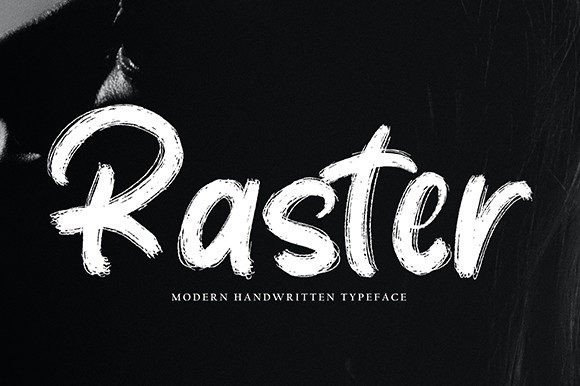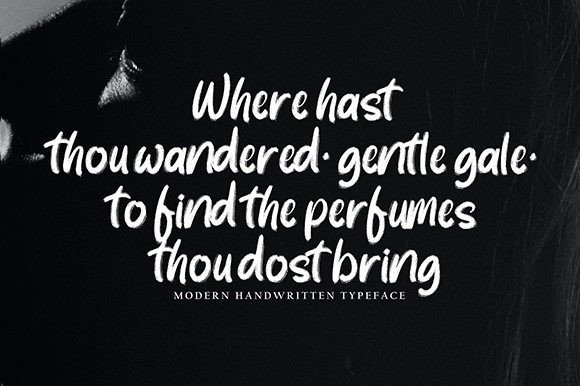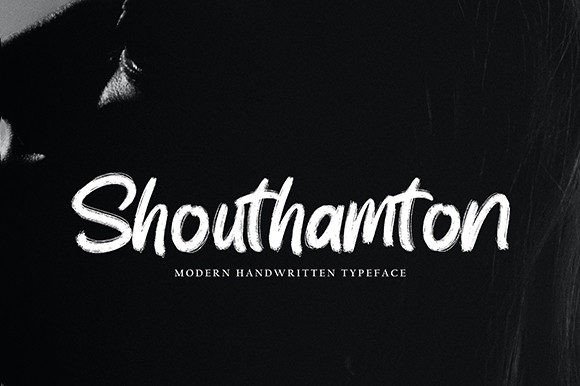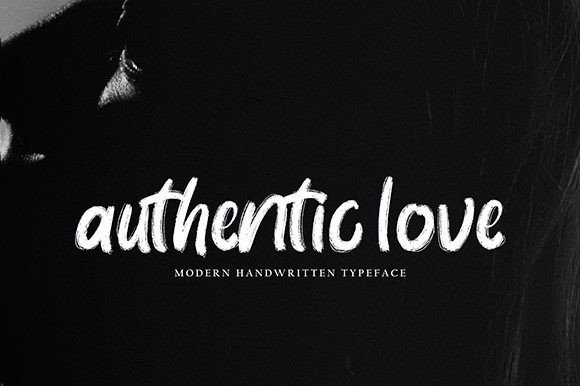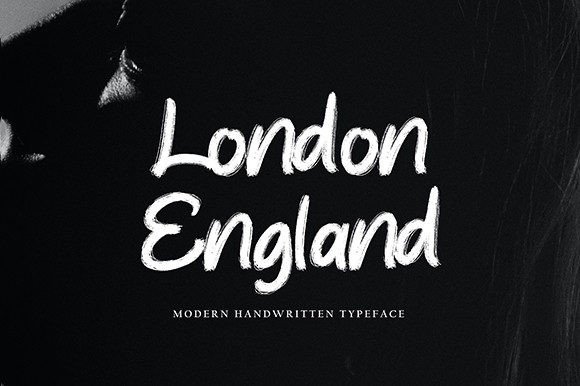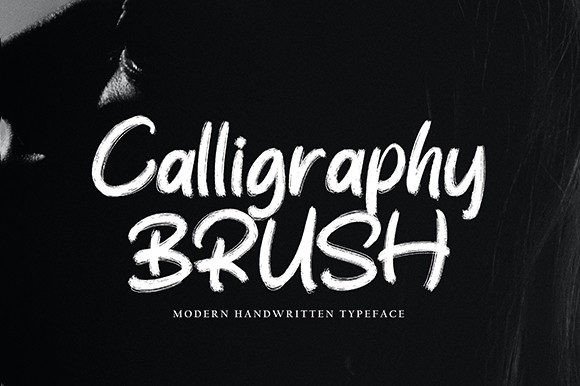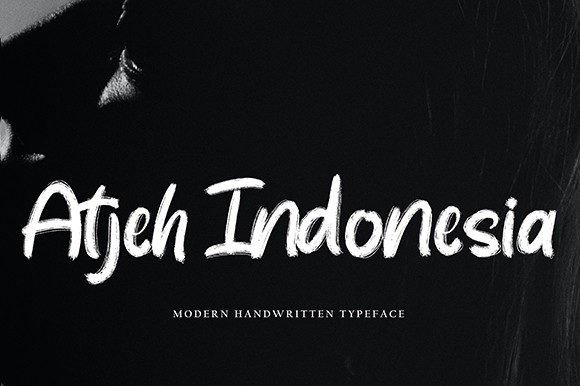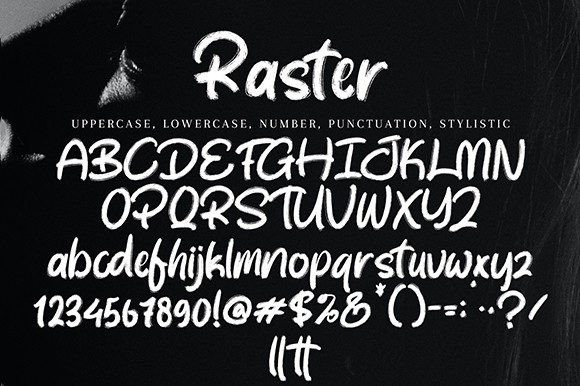
Raster Font
About Raster Font
A Rough Handwritten Font for Creative Designs
The Raster Font is a rough handwritten style typeface that brings a unique, artistic flair to any project. Whether you’re working on quotes, logos, blog headers, posters, or invitations, this font’s rugged, handmade look adds character and creativity to your designs. Its handwritten charm gives it a personalized, authentic touch, making it perfect for various design applications.
Ideal for Logos and Branding
The Raster Font is an excellent choice for creating logos and branding materials. Its rough, handwritten appearance brings an edgy, informal feel to your brand identity, making it perfect for businesses in industries like music, art, fashion, and creative services. Whether you’re designing a logo for a band, a creative agency, or a startup, this font offers a distinctive, memorable look.
Perfect for Quotes and Typography Projects
The Raster Font is ideal for quotes and other typography-based designs. Its rugged, handwritten aesthetic makes it perfect for social media posts, motivational quotes, and artistic posters. Whether you’re creating a design for a website, blog, or print materials, this font ensures your text stands out with a bold, artistic feel that captures attention.
Great for Invitations and Stationery
For special occasions, the Raster Font works wonderfully on invitations and stationery. Whether you’re designing wedding invitations, birthday cards, or thank you notes, this font adds a personalized touch, making it perfect for informal events or artistic celebrations. Its rough style makes it feel handmade and authentic, ideal for a rustic or creative theme.
Versatile for a Range of Creative Projects
The Raster Font is highly versatile, making it suitable for a wide variety of design projects. From posters to band logos, flyers, letterheads, and even packaging, this font works beautifully across digital and print formats. Its rough handwriting style gives your designs an artistic, informal feel while still maintaining legibility and clarity.
Perfect for Informal and Bold Designs
The Raster Font is perfect for projects that require an informal, bold design. Its rough edges and handwritten style make it stand out, making it ideal for projects that need a creative, authentic feel. Whether you are designing for music events, art galleries, or fashion promotions, this font will add a distinctive, edgy look to your designs.
Despite its artistic design, the Raster Font is easy to use and adaptable for various design needs. Its legibility ensures that it works well for both large headlines and smaller text applications. Whether you’re working in graphic design software, on websites, or for print projects, this font integrates seamlessly into your creative process, giving your designs an authentic, handmade touch.
Add Character to Your Projects with Raster Font
If you’re looking to add a rough, handwritten touch to your designs, the Raster Font is the perfect choice. Whether you’re working on logos, quotes, posters, invitations, or any other creative project, this font’s unique style ensures that your work stands out with a bold, artistic flair. Bring your designs to life with the Raster Font and make your projects truly memorable.